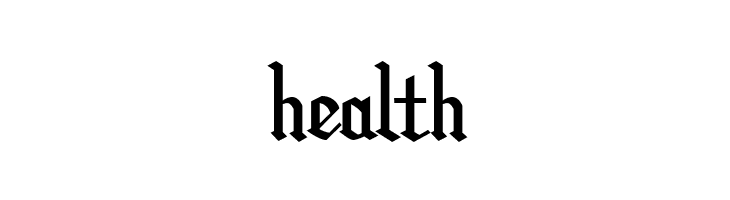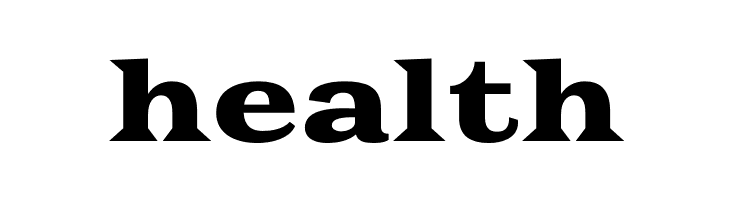
An ornate, decorative font with a festive, gothic style.
Modern geometric sans-serif with clear, open shapes.
A bold, condensed sans-serif font with a modern and impactful style.
An elegant, thin script font with flowing, interconnected letters and high contrast strokes.
A bold, serif font with strong, thick strokes and a classic, authoritative style.
Patriotic-themed dingbat font with detailed illustrations.